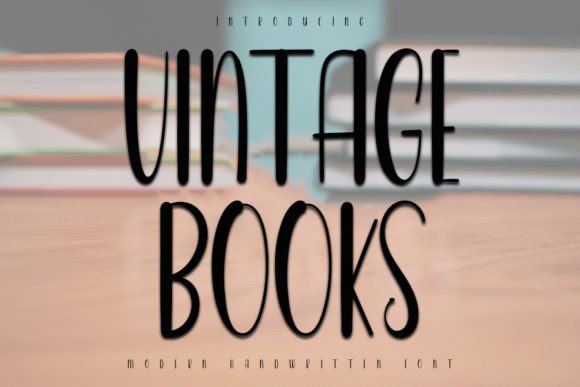
Behold the exquisite Vintage Books Font, a captivating script crafted to bring timeless charm to your creative endeavors. Dive into a world of elegance, where classic calligraphy meets modern aesthetics. With its delicate strokes and flowing curves, Vintage Books evokes a sense of nostalgia and enchantment. This font is not just a collection of letters; it's an invitation to embark on a journey through the annals of history, where words dance with grace and artistry.
Immerse yourself in the beauty of Vintage Books, a font that captures the essence of vintage typography. Its meticulously crafted characters exude an air of sophistication and timeless appeal. Each letter is a masterpiece, adorned with subtle details that add depth and character to your designs. Discover the allure of Vintage Books and let your imagination soar.
Unleash the power of Vintage Books and elevate your designs to new heights. Whether you're creating logos, branding materials, or eye-catching social media graphics, this font will add a touch of sophistication and charm to your work. Its versatility knows no bounds, seamlessly adapting to a wide range of projects. Experience the transformative power of Vintage Books and watch your designs come alive with elegance and grace.
Designed by the esteemed PiPi Creative, Vintage Books is a testament to their artistic prowess and dedication to crafting fonts that inspire and captivate. With their keen eye for detail and unwavering commitment to quality, PiPi Creative has created a font that is both visually stunning and highly functional. Trust in the expertise of PiPi Creative and let Vintage Books be your creative companion, guiding you towards design excellence.